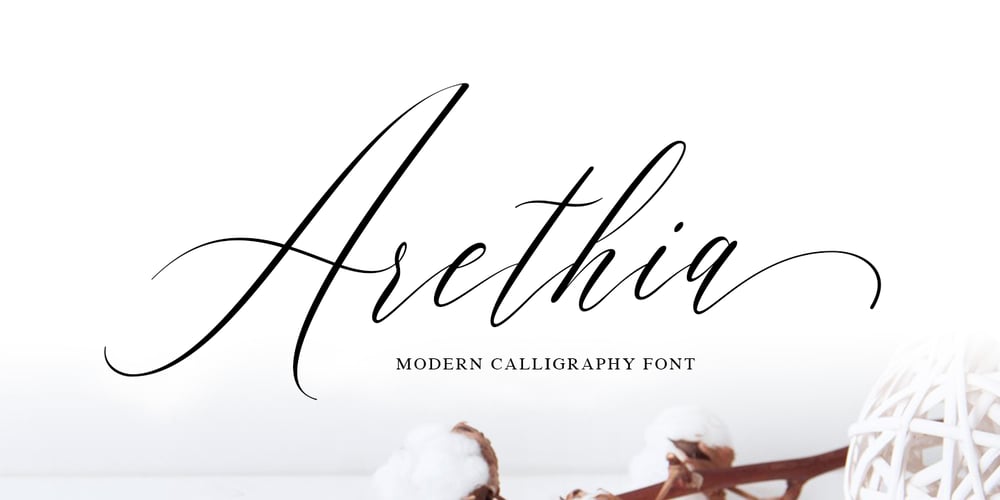
Arethia
Arethia font
Arethia Font Family was designed by Riski Firmana and published by Solidtype. Arethia contains 1 styles and family package options. A new modern calligraphy font that features a varying baseline, smooth line, classic and elegant touch. It comes with a handy set of opentype stylistic, use the beautiful ligatures, alternates and swashes. It is perfect for logo, greetings, branding, quotes, prints, invitations and crafting. All lowercase letters include alternates, beginning & end swashes, that makes the font look fabulous! Thanks and have a wonderful day ๐Ÿ™‚